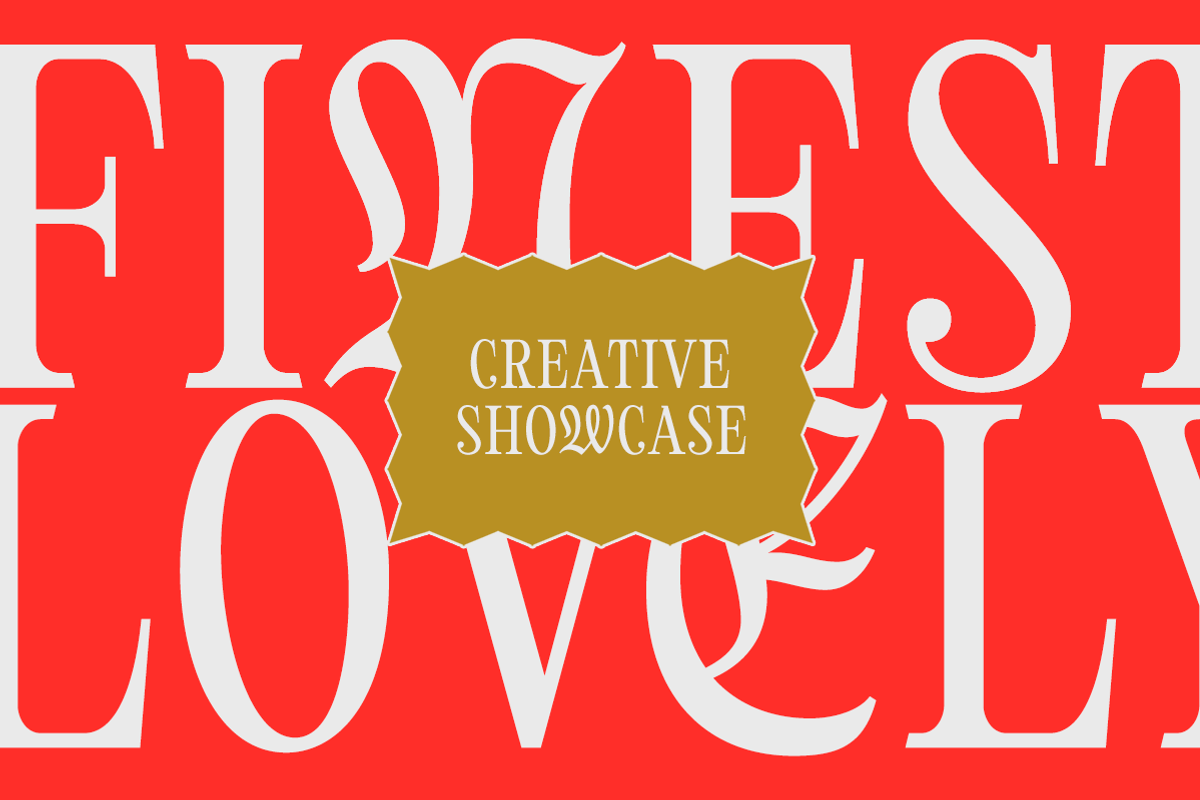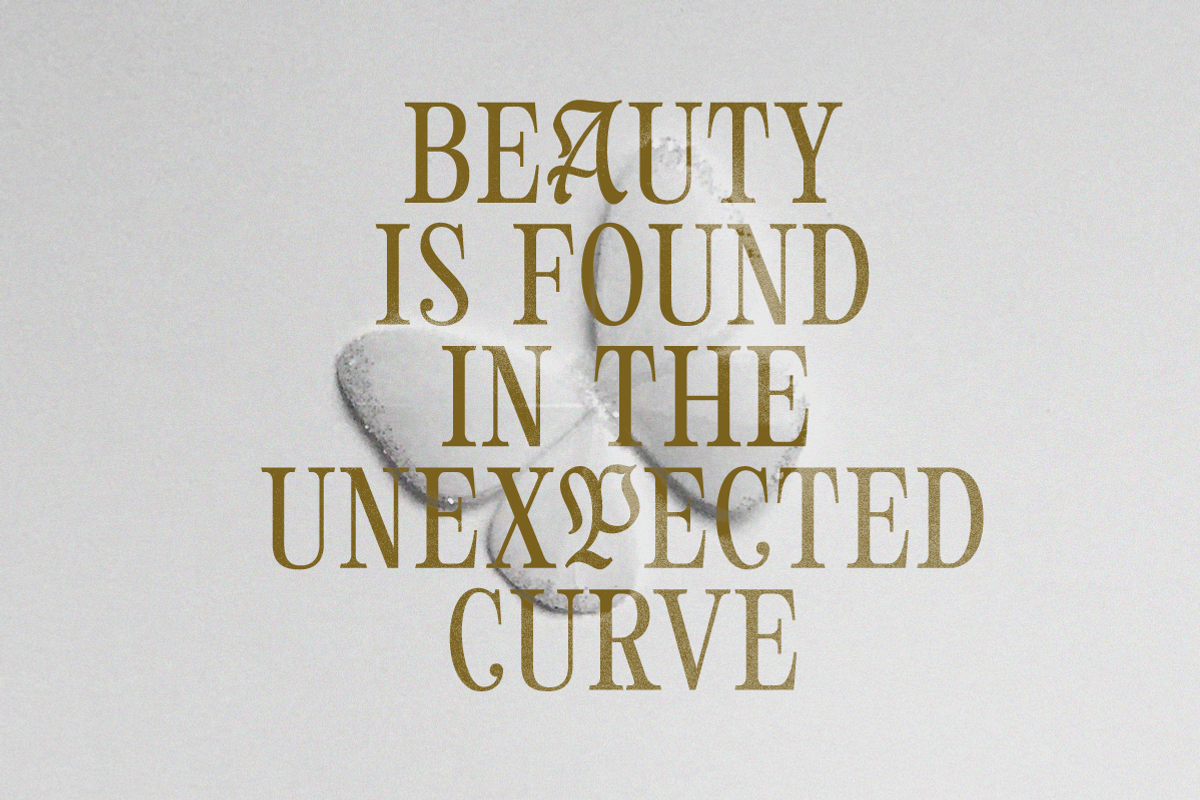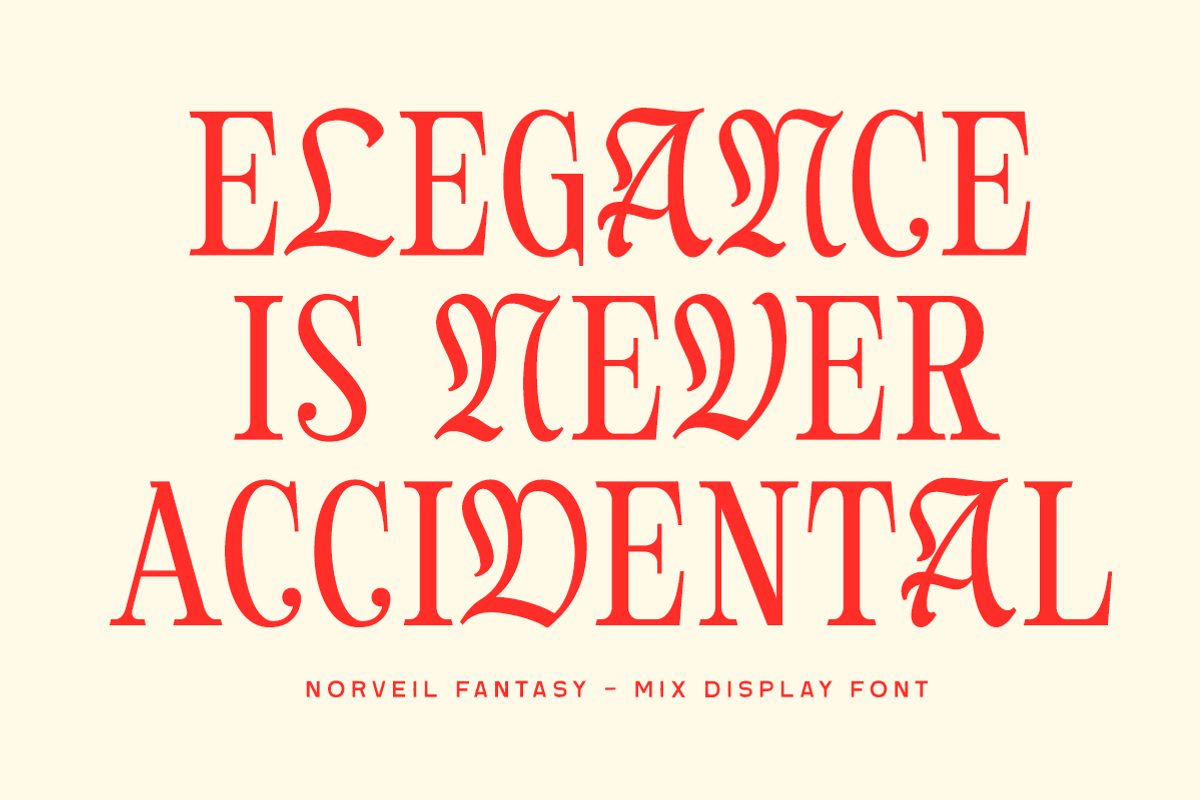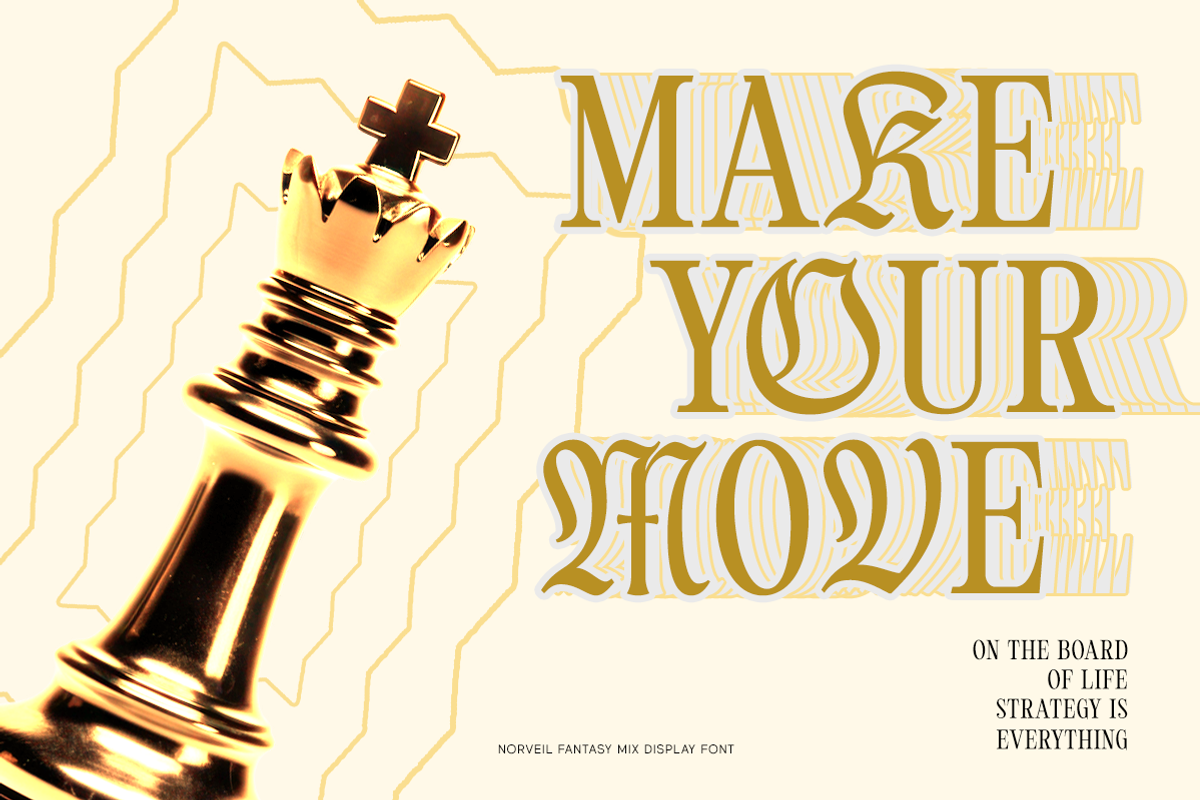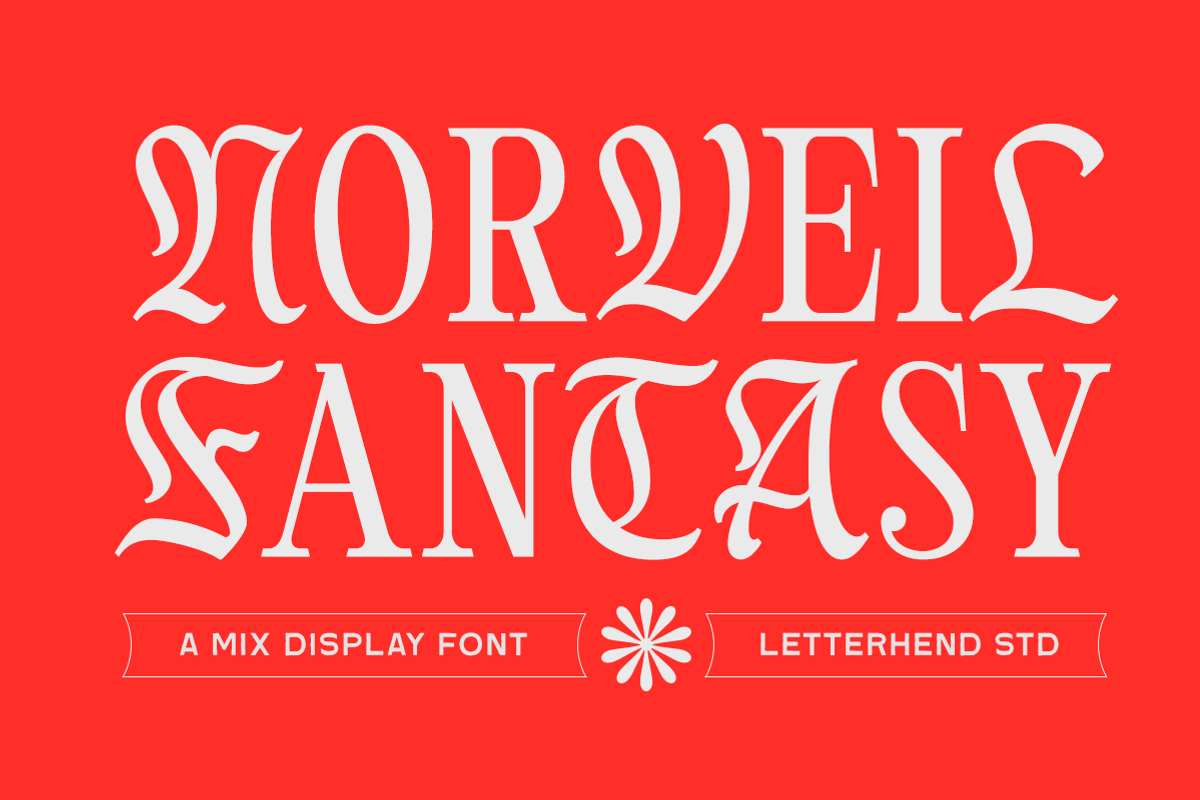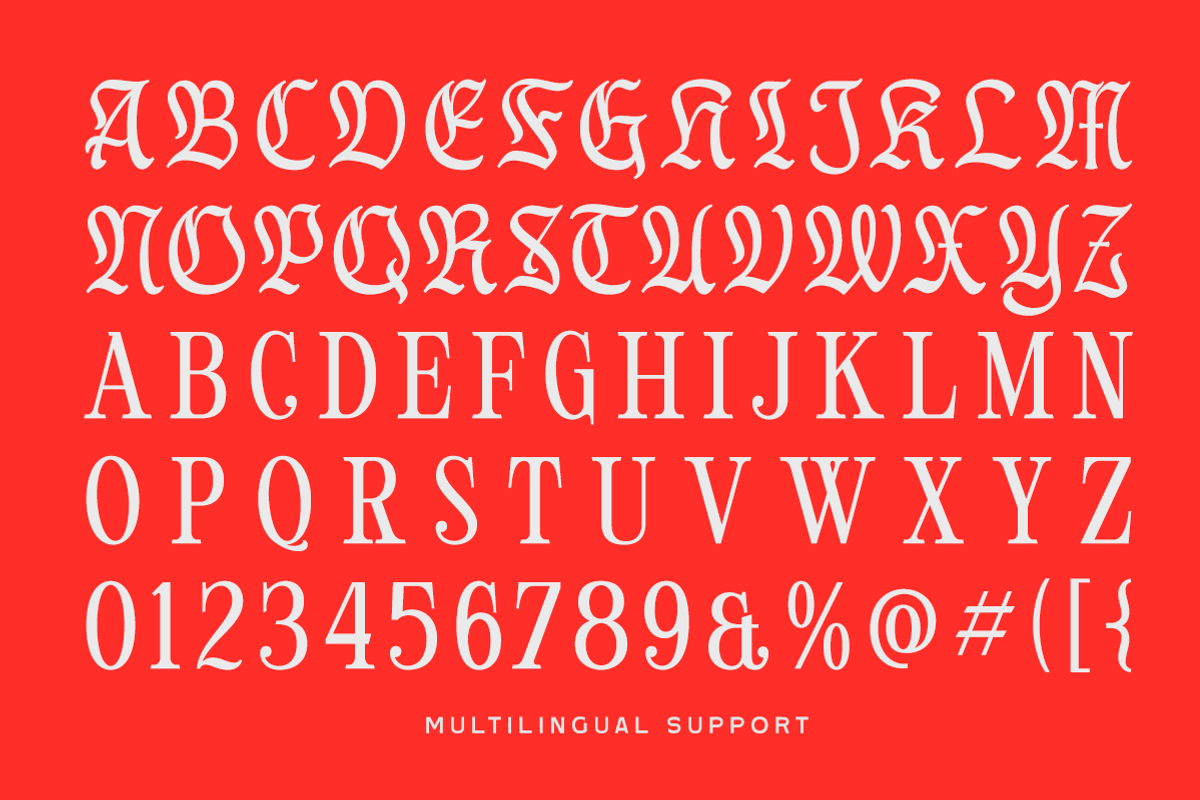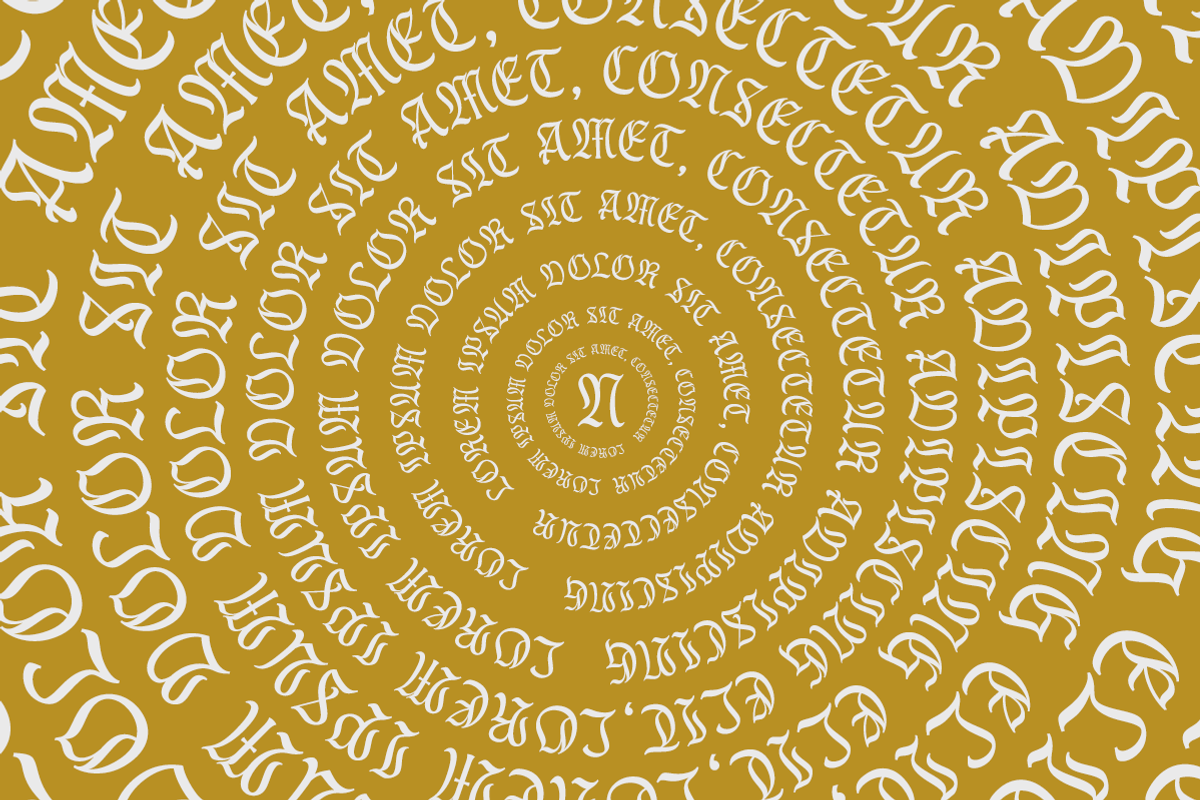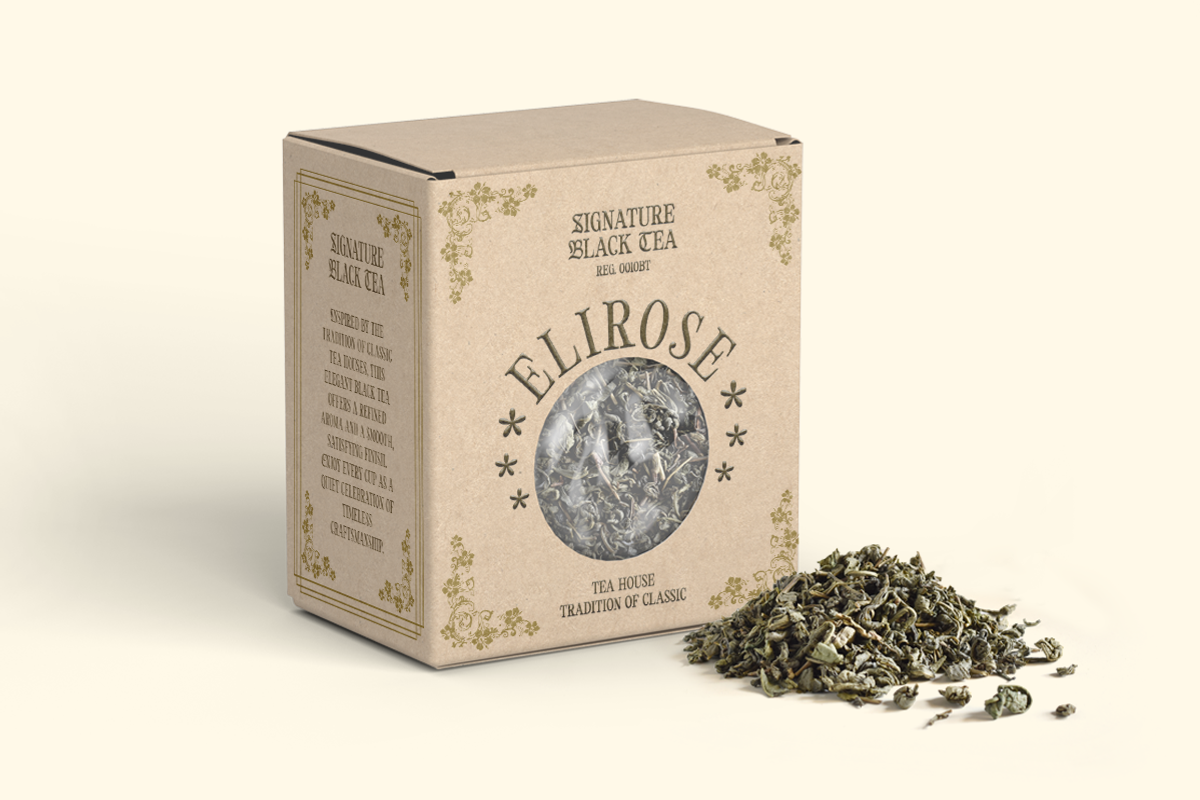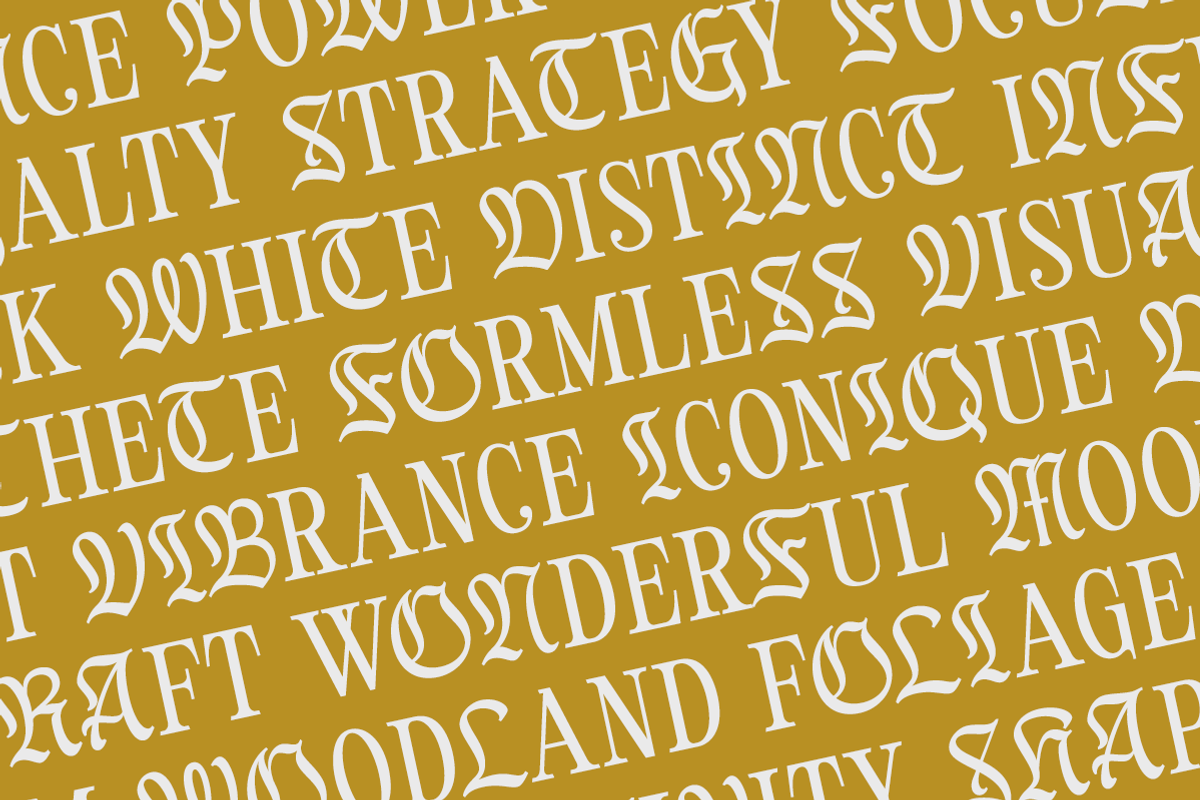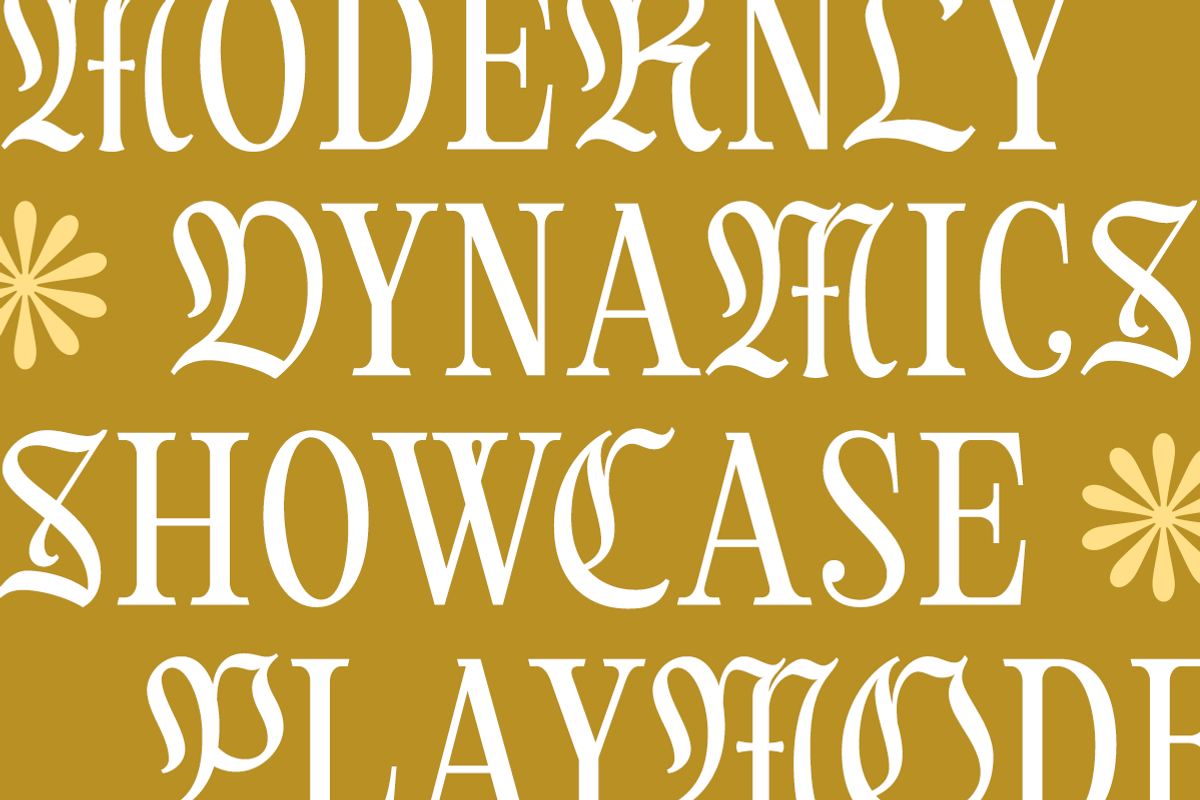
Norveil Fantasy Display Font
Norvel Fantasy blends refined serif structure with whimsical ornamental details, creating a display style that feels both timeless and delightfully unexpected. Graceful curves, flowing terminals, and decorative swashes soften its classic foundation, giving every word a distinctive rhythm with a hint of vintage charm.
Uppercase & lowercase
Numbers and punctuation
Alternates & Ligatures